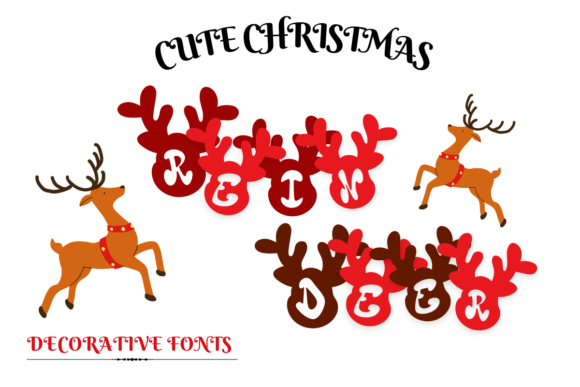
Cute Christmas Reindeer Font: A Festive Addition to Your Designs
Are you looking for a fun and festive font to add to your holiday designs? Look no further than the Cute Christmas Reindeer font! This adorable font is perfect for creating a variety of holiday-themed projects, from greeting cards and gift tags to social media posts and more.
What is Cute Christmas Reindeer Font?
Cute Christmas reindeer is a Decorative font, designed to bring a touch of holiday cheer to your designs. The font features playful, whimsical reindeer characters that are sure to delight both kids and adults alike. With its bold and bubbly design, this font is perfect for creating eye-catching holiday projects that are sure to stand out.
Uses for Cute Christmas Reindeer Font
One of the best things about the Cute Christmas Reindeer font is its versatility. While it’s perfect for traditional holiday projects like:
- Taking notes and writing a diary
- Making greeting cards and gift tags
- Creating holiday banners and signs
It’s also great for a wide range of other design projects, including:
- Mugs and water bottles
- T-shirts and hoodies
- Stationery and journals
- Social media posts and graphics
- And more!
Why Choose Cute Christmas Reindeer Font?
So why choose the Cute Christmas Reindeer font for your holiday designs? Here are just a few reasons:
- Unique and eye-catching design: The playful reindeer characters in this font are sure to grab attention and add a touch of holiday magic to your designs.
- Versatile: This font can be used for a wide range of design projects, from traditional holiday projects to more modern and creative endeavors.
- Easy to use: With its simple and intuitive design, the Cute Christmas Reindeer font is easy to use, even for those with limited design experience.
Tips for Using Cute Christmas Reindeer Font
Here are a few tips for getting the most out of the Cute Christmas Reindeer font:
- Experiment with different colors: While the traditional holiday colors like red and green are always a great choice, don’t be afraid to try out other colors and combinations to make your designs really stand out.
- Mix and match with other fonts: The Cute Christmas Reindeer font pairs well with a wide range of other fonts, so don’t be afraid to get creative and try out different combinations.
- Use it to add a personal touch: Whether you’re creating holiday cards for friends and family or designing a festive banner for your business, the Cute Christmas Reindeer font is a great way to add a personal touch and make your designs feel more special.
Q: What is the Cute Christmas Reindeer font?
A: The Cute Christmas Reindeer font is a decorative font featuring playful reindeer characters, perfect for creating holiday-themed designs.
Q: What can I use the Cute Christmas Reindeer font for?
A: You can use the Cute Christmas Reindeer font for a wide range of design projects, including greeting cards, gift tags, banners, social media posts, and more.
Q: Is the Cute Christmas Reindeer font easy to use?
A: Yes, the Cute Christmas Reindeer font is easy to use, even for those with limited design experience.